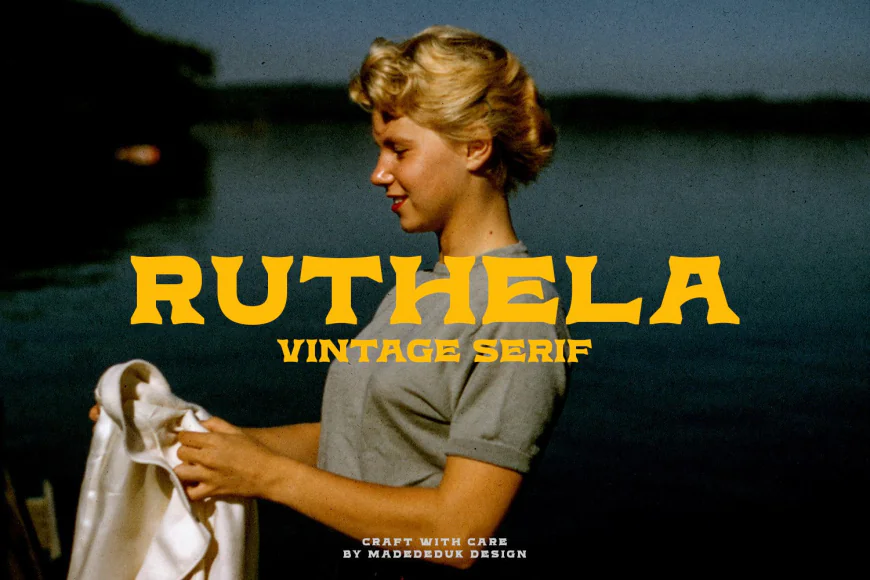
Ruthela is a vintage version of the font, featuring a single weight and legible and expressive forms. You can explore and combine them, creating a rhythm for comfortable reading.